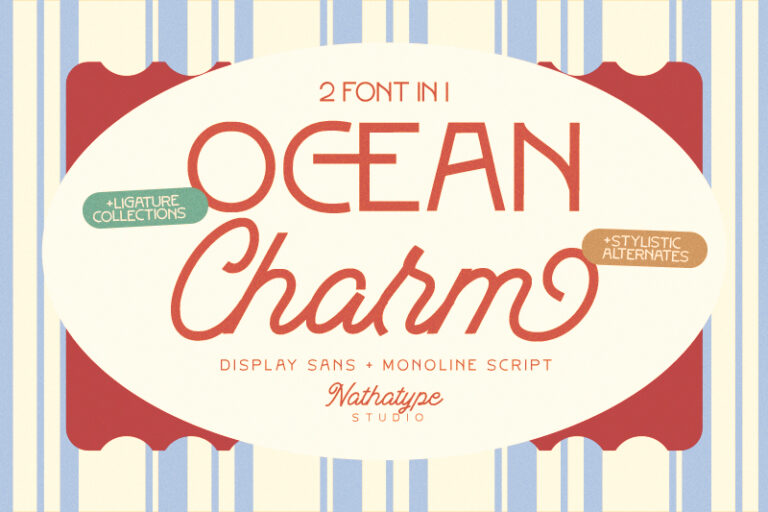
Ocean Charm is a beautifully balanced font duo that combines a lightweight uppercase display sans font with a graceful monoline script font, creating a harmonious blend of structure and fluidity. Designed to evoke freshness, elegance, and modern charm, Ocean Charm is perfect for designers seeking versatile typography that feels clean, stylish, and effortlessly refined. In addition, enjoy the features here.
- Alternates
- Ligatures
- Stylistic Sets
- Numerals and Punctuations
Ocean Charm fits in logos, invitations, quotes, branding, posters, and many more designs. Find out more ways to use this font by taking a look at the font preview.